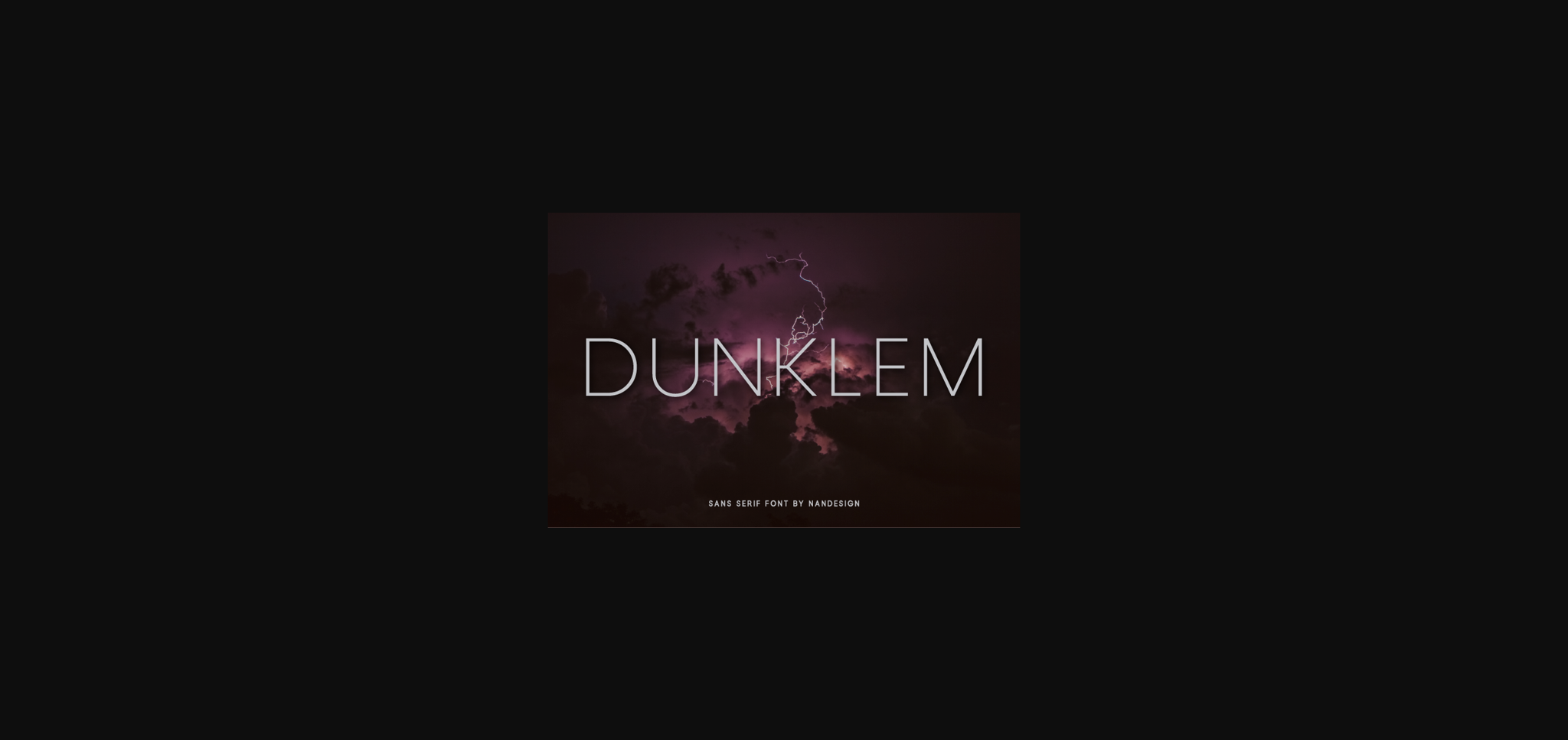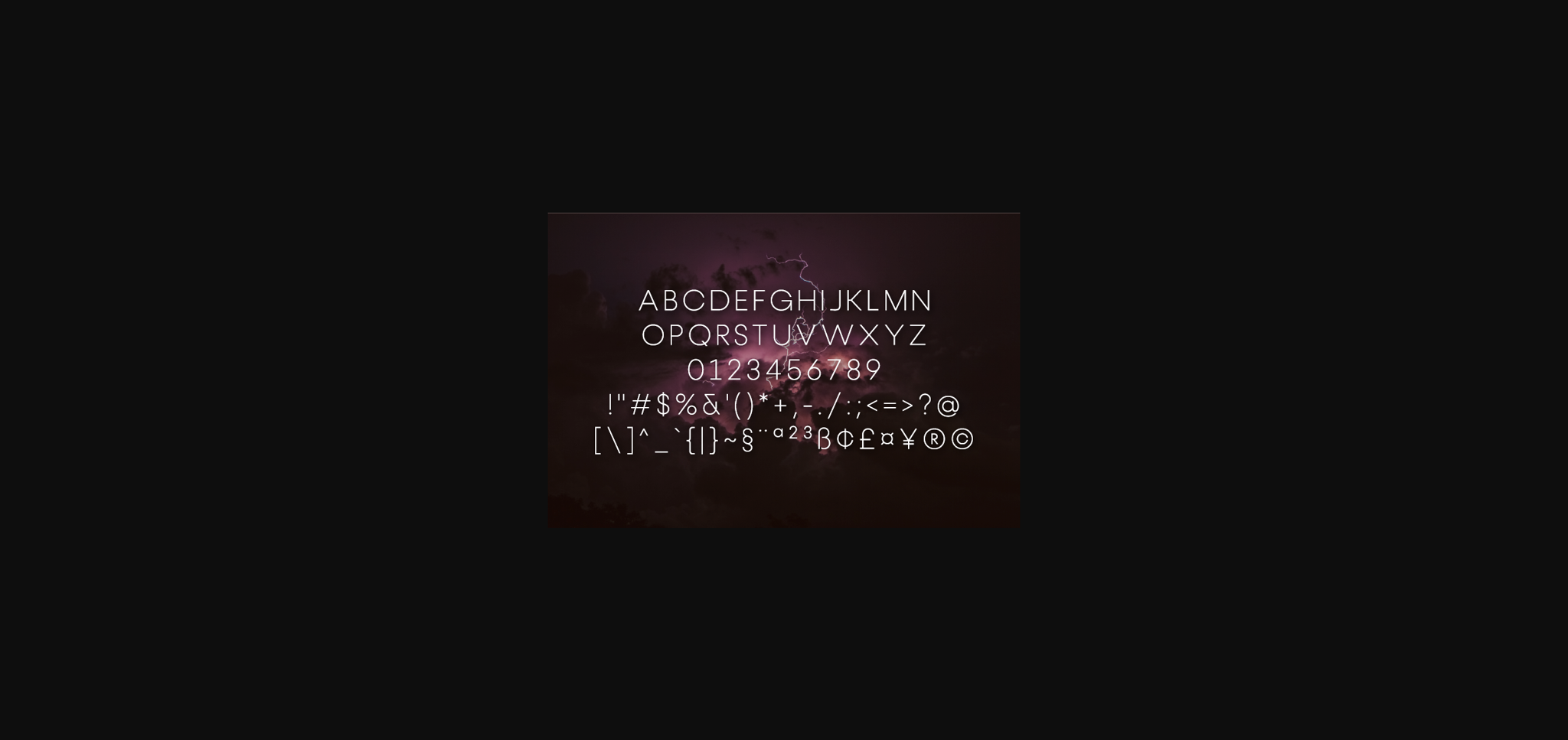
Dunklem Font
About Dunklem Font
Dunklem is a minimal, yet elegant sans serif font. Suitable to a wide variety of designs due to its neat and simple style, Dunklem has the potential to become your favorite go-to font, no matter the occasion!